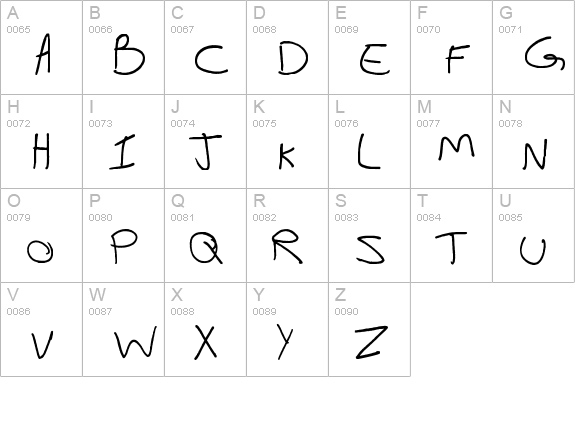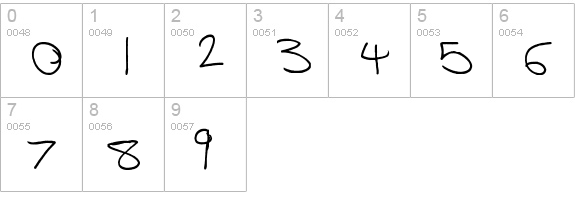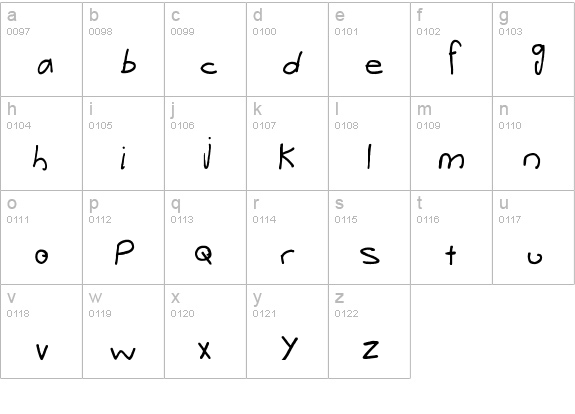
Alix2 Font Details
Alix2 font is a beautifully crafted typeface that exudes elegance and sophistication. With its sleek lines and modern design, this font is perfect for adding a touch of class to any project. Whether you're designing a logo, creating a poster, or working on a website, Alix2 font will make your text stand out. The best part is that Alix2 font is completely free to download! You can easily access this stunning font at FontsMarket.com and start using it in your designs right away. Don't miss out on the opportunity to enhance your work with this versatile and eye-catching typeface. Download Alix2 font today and take your designs to the next level!